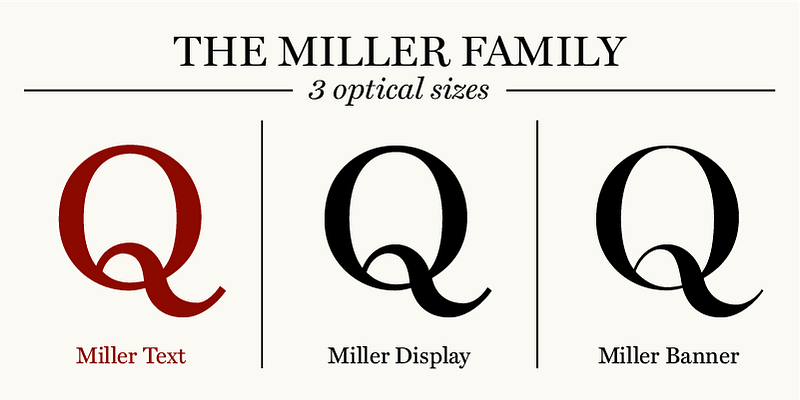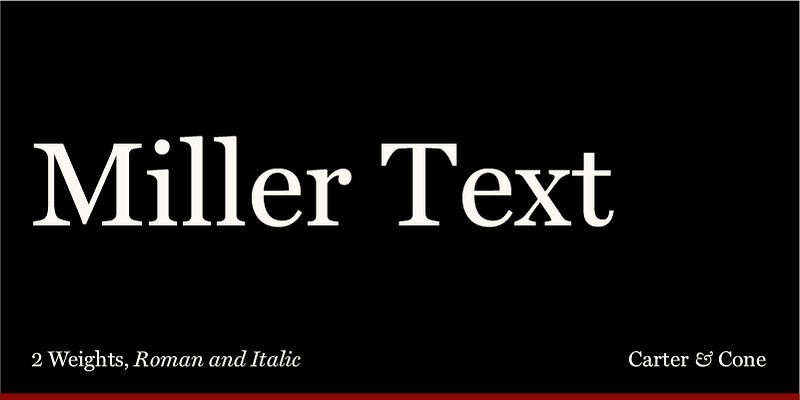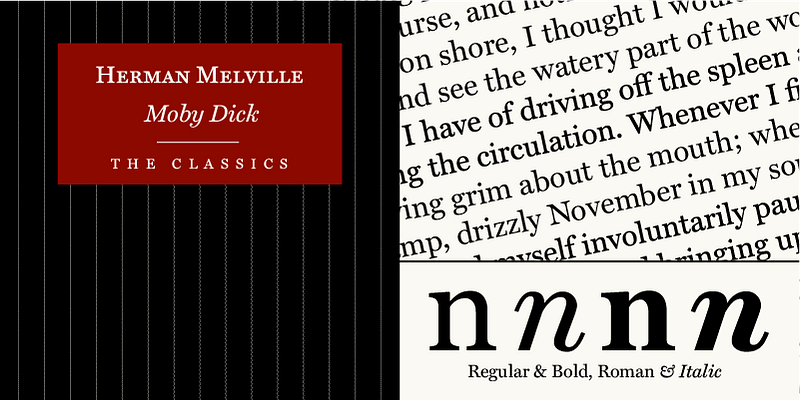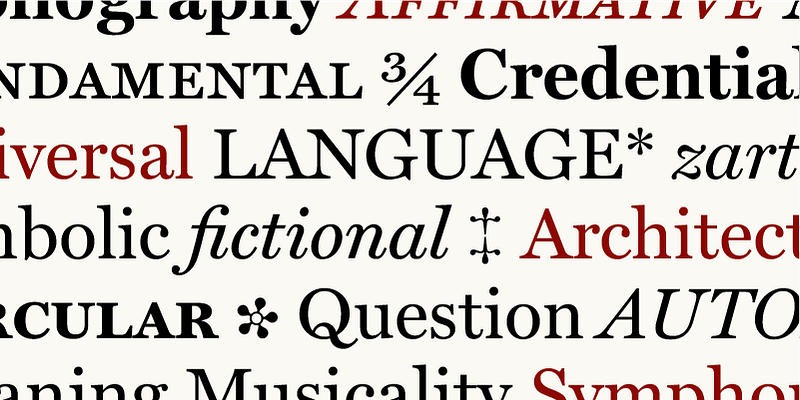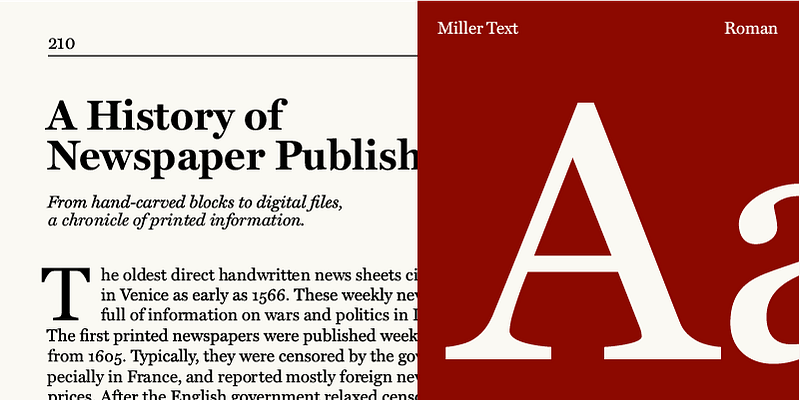
Miller Text, designed by Matthew Carter, epitomizes a reliable and attractive text font. Its utility and grace are apparent onscreen or in an off-the-rack fashion magazine. The Miller family of typefaces is a reinvigoration of the 19th-century Scotch Roman. This series was a team effort, with Richard Lipton, Jill Pichotta, Tobias Frere-Jones, and Cyrus Highsmith contributing at different stages. Carter & Cone’s Miller Text is available in Roman, Semi Bold, and Bold with companion Italics.